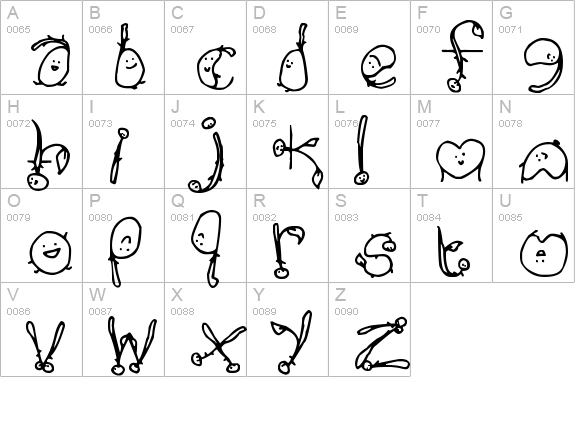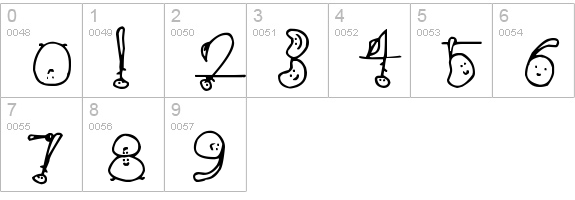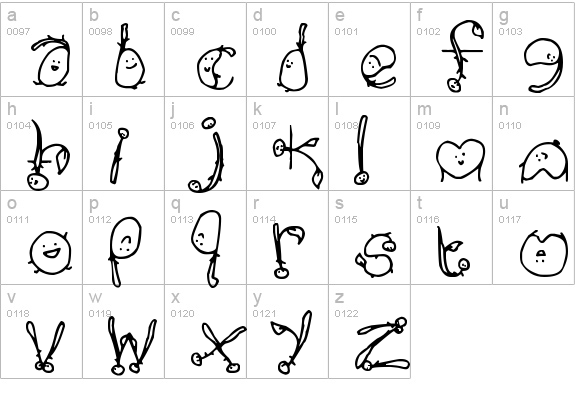
Happy Potatoes Font Details
Happy Potatoes font is a delightful and whimsical typeface that is sure to add a playful touch to any design project. With its rounded, friendly letterforms and charming personality, this font is perfect for a variety of creative applications. Whether you're designing birthday invitations, crafting a fun logo, or adding a cheerful touch to your social media graphics, Happy Potatoes font is a fantastic choice.